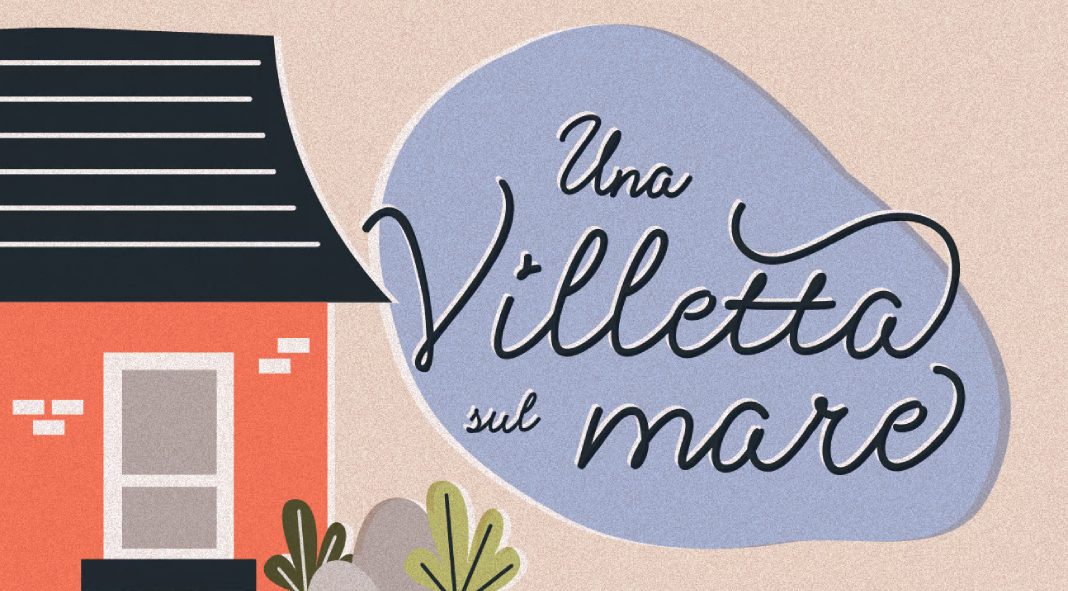
Unveiling the Elegance of Lettera Font by Resistenza: A Nostalgic Journey into 20th-Century Penmanship
Fonts carry an aura and personality of their own, and among the myriad options available, Lettera by the renowned foundry Resistenza stands as a testament to the timeless elegance of 20th-century penmanship. Designed by the talented duo of Giuseppe Salerno and Paco González, Lettera is a monoline script font that encapsulates the essence of romantic and naive handwriting from the past. In this blog post, we’ll delve into the details of Lettera font, exploring its connected letterforms, versatile glyphs, and its perfect suitability for crafting beautiful custom headlines and wordmarks.
A Nostalgic Revival
Lettera is more than just a font; it’s a nostalgic journey into the world of vintage handwriting. Designed with a rounded nib, it effortlessly brings forth the soul of a bygone era, where handwritten correspondence held a special place in communication. The rounded nib gives the font a gentle, flowing quality that evokes a sense of warmth and nostalgia.
Connected Letterforms
One of the most striking features of Lettera is its beautifully connected letterforms. Each character seamlessly flows into the next, replicating the natural movement of a skilled hand gliding across a page. This connected script design is reminiscent of the handwritten letters exchanged between loved ones in the 20th century, adding a touch of sentimentality to any project.
Glyphs Galore
Lettera boasts an impressive set of 400 glyphs, which include alternates, swashes, and ending forms. This extensive character set provides designers with a wealth of creative possibilities. Let’s take a closer look at some of these elements:
- Alternates: The alternates in Lettera allow you to experiment with different letterforms, giving your text a unique and personalized touch. Whether you want to add a flourish to a specific character or create a distinct look for your project, Lettera’s alternates have you covered.
- Swashes: Swashes are elegant and decorative flourishes that can be applied to characters, adding a touch of sophistication to your design. They are perfect for creating ornate headlines or embellishing specific words or initials.
- Ending Forms: The ending forms in Lettera offer a graceful way to conclude your text or emphasize certain words. These decorative elements give your typography a polished and refined appearance.
Versatile Applications
Lettera font’s versatility is a standout feature. It’s not limited to any one type of design; rather, it can be used in a variety of creative projects. Here are a few examples:
- Custom Headlines: Lettera is the ideal choice for crafting custom headlines that demand attention. Its monoline script style combined with the ability to use alternates and swashes makes it perfect for creating eye-catching headers in magazines, posters, or websites.
- Wordmarks: Brands looking for a unique and memorable wordmark will find Lettera font to be a valuable asset. Its handwritten charm can infuse a brand’s identity with personality and authenticity.
- Invitations and Stationery: Whether it’s wedding invitations, greeting cards, or personalized stationery, Lettera adds a touch of elegance and nostalgia to these special occasions.
- Vintage Designs: For projects that require a vintage or retro aesthetic, Lettera font effortlessly transports your audience to a bygone era, creating a sense of nostalgia and authenticity.
In this digital age where communication is often swift and impersonal, Lettera font from Resistenza takes us back to a time when the written word was an art form in itself. Designed with a rounded nib and connected letterforms, this monoline script font captures the essence of 20th-century penmanship with a touch of romanticism and naivety.
With its extensive set of glyphs, including alternates, swashes, and ending forms, Lettera offers endless creative possibilities. It’s the perfect choice for designers looking to add a nostalgic flair to their custom headlines, wordmarks, invitations, and vintage-themed projects. The Lettera font by Resistenza stands as a timeless reminder of the beauty of handwritten expression. It’s more than just a font; it’s a journey into the past, a celebration of craftsmanship, and a bridge between the elegance of yesteryears and the design possibilities of today.